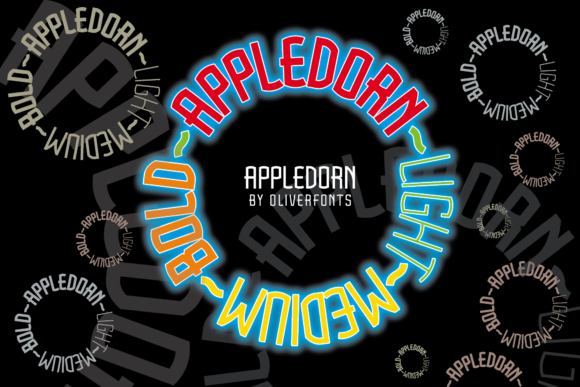
Prepare to embark on a typographic voyage to a forgotten era with Appledorn, a daring sans serif font family that oozes vintage charm and timeless elegance. Meticulously crafted by the visionary designers at OLIVERFONTS, Appledorn transcends the boundaries of conventional typefaces, captivating you with its uniquely captivating characters.
Immerse yourself in the world of Appledorn, where each letter dances with a distinctive personality, adding a touch of nostalgia to your creative endeavors. Its meticulously crafted curves and sharp angles harmonize beautifully, reflecting the essence of vintage design while maintaining a modern edge. Whether you're a seasoned designer or just starting your creative journey, Appledorn is the ultimate font companion, guiding you towards typographic excellence.
Unleash the power of Appledorn to transform your designs into masterpieces. Let its vintage allure breathe life into your posters, logos, branding, and editorial projects. Its bold presence commands attention, effortlessly capturing the hearts and minds of your audience. Appledorn is more than just a font; it's a portal to a bygone era, where nostalgia and innovation converge in perfect harmony.
Whether you seek to evoke a sense of history, create a timeless aesthetic, or simply add a touch of individuality to your designs, Appledorn stands as your steadfast ally. Its versatile nature effortlessly complements diverse design styles, from vintage-inspired creations to modern masterpieces. Experience the transformative power of Appledorn and elevate your designs to new heights.